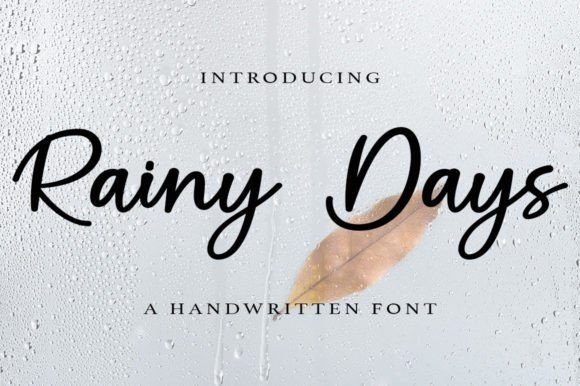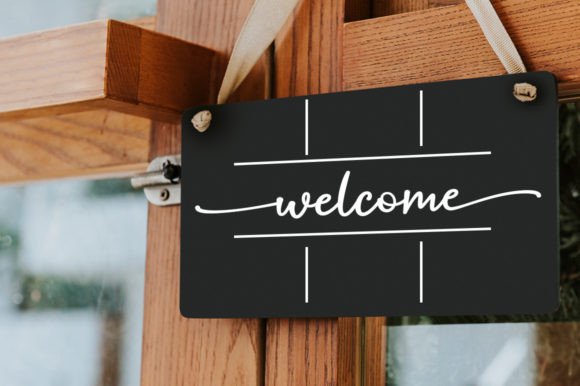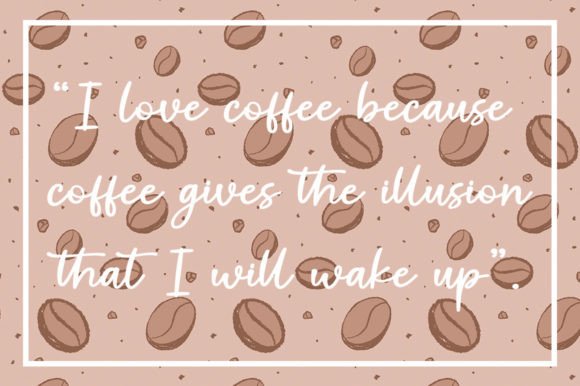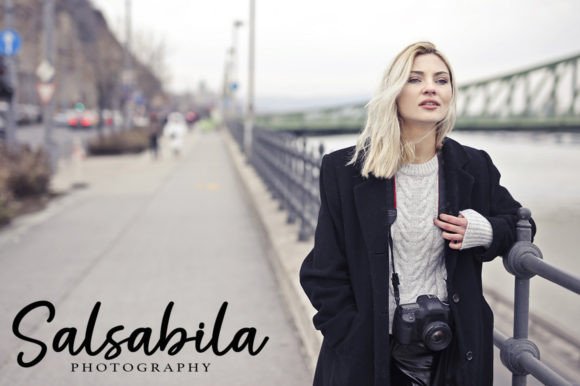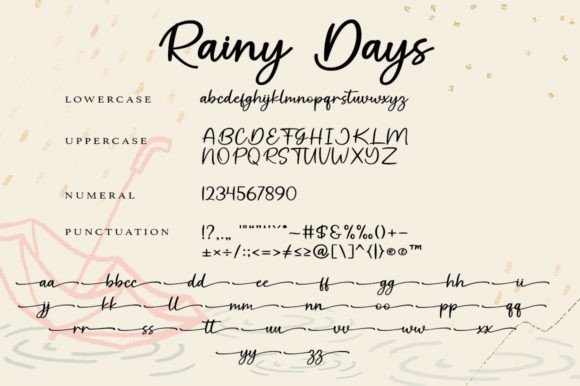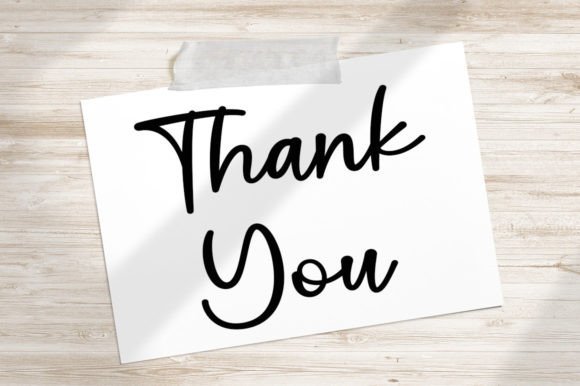
Rainy Days Font
About Rainy Days Font
**Rainy Days Font: Add Elegance and Charm to Your Designs**
The Rainy Days font is a beautifully crafted typeface that effortlessly blends charm and elegance. With its delicate strokes and handwritten touch, this font is a versatile choice for a wide range of design projects. Here’s why Rainy Days is the perfect font to add sophistication to your creations:
**Charming and Elegant:** Rainy Days strikes a perfect balance between charm and elegance, making it an ideal choice for designs that require a touch of sophistication.
**Wedding Invitations:** Elevate the look of your wedding invitations with the romantic and handwritten style of the Rainy Days font. It adds a personal and elegant touch to your special day.
**Thank You Cards:** Express gratitude with grace and charm using this font on thank you cards. Its elegant appearance conveys sincerity and appreciation.
**Quotes:** Transform ordinary quotes into visually appealing statements. Rainy Days adds an artistic flair to your favorite quotes, making them stand out.
**Greeting Cards:** Create stunning greeting cards for various occasions, from birthdays to anniversaries, using this font. It conveys heartfelt sentiments with a touch of class.
**Logos:** Craft unique and memorable logos that reflect your brand’s personality. Rainy Days’ handwritten style adds a human touch to your logo design.
**Business Cards:** Impress clients and partners with business cards that exude professionalism and elegance. This font makes your contact information more visually appealing.
**Versatile Usage:** Rainy Days can be used for both print and digital design projects, giving you flexibility across various media.
**Special Characters:** The font includes PUA encoding, ensuring easy access to a wide range of glyphs and swashes that can enhance the visual appeal of your text.
**Signature Style:** Use Rainy Days to create a personalized signature or a signature-like element in your designs, adding a sense of authenticity and uniqueness.
**Digital and Print:** Whether you’re designing for online content or print materials, Rainy Days adapts seamlessly to both mediums.
**Branding:** Establish a brand identity that conveys elegance and approachability. Rainy Days can be a key element in creating a memorable brand image.
**Timeless Appeal:** The classic and timeless design of Rainy Days ensures that your designs maintain their charm and relevance over time.
**Fine Details:** The font’s fine details and carefully crafted characters make it a standout choice for projects that demand precision and style.
**Enhance Emotions:** Rainy Days can evoke emotions such as romance, nostalgia, and warmth, making it suitable for a wide array of design concepts.
**Personal Projects:** Whether you’re designing personal stationery, invitations, or home decor, Rainy Days adds a touch of sophistication to your creations.
**Captivate Audiences:** Draw your audience in with the captivating beauty of Rainy Days, leaving a lasting impression on viewers.
**Storytelling:** Use this font to enhance storytelling in book covers, titles, and illustrations, setting the tone for your narrative.
Rainy Days is more than just a font; it’s a tool for elevating your designs and adding a touch of charm and elegance to your creative projects. Whether you’re designing for special occasions, branding, or personal expression, Rainy Days is a font that combines sophistication with handwritten warmth, making it a versatile and captivating choice for designers and creators.